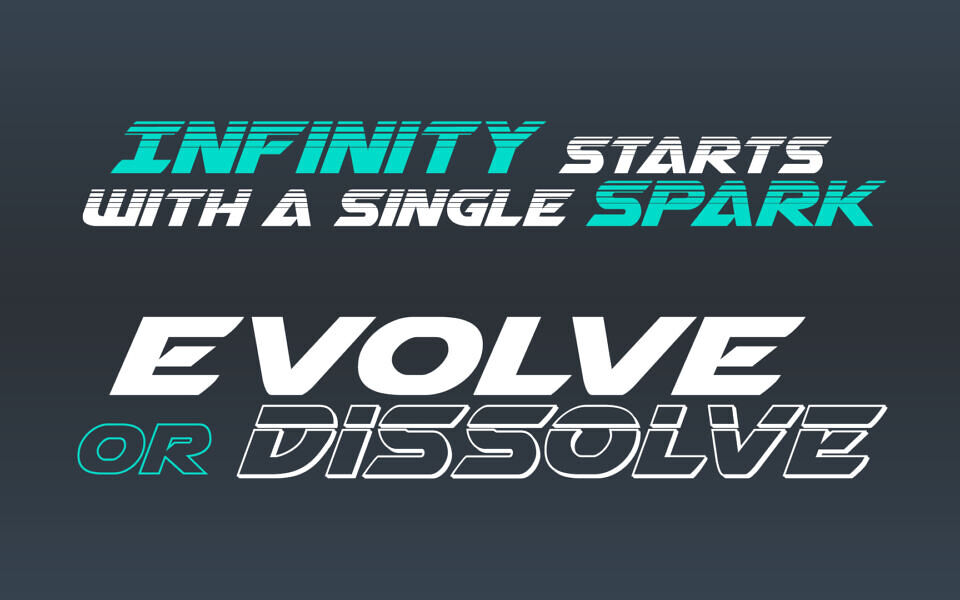
Airstrike Font
Airstrike Font, crafted by Iconian Fonts, is a dynamic sci-fi and techno-inspired typeface perfect for bold, futuristic designs. Available in 14 versatile styles—including Regular, Bold, Condensed, 3D, and Laser—it offers creative flexibility for logos, posters, and digital projects.
Version 1.1 refines curves and lines, ensuring crisp visuals. Airstrike’s sleek, modern aesthetic and 209 characters. Perfect for sci-fi, technology, and impactful graphic design projects, it offers versatility and personality.